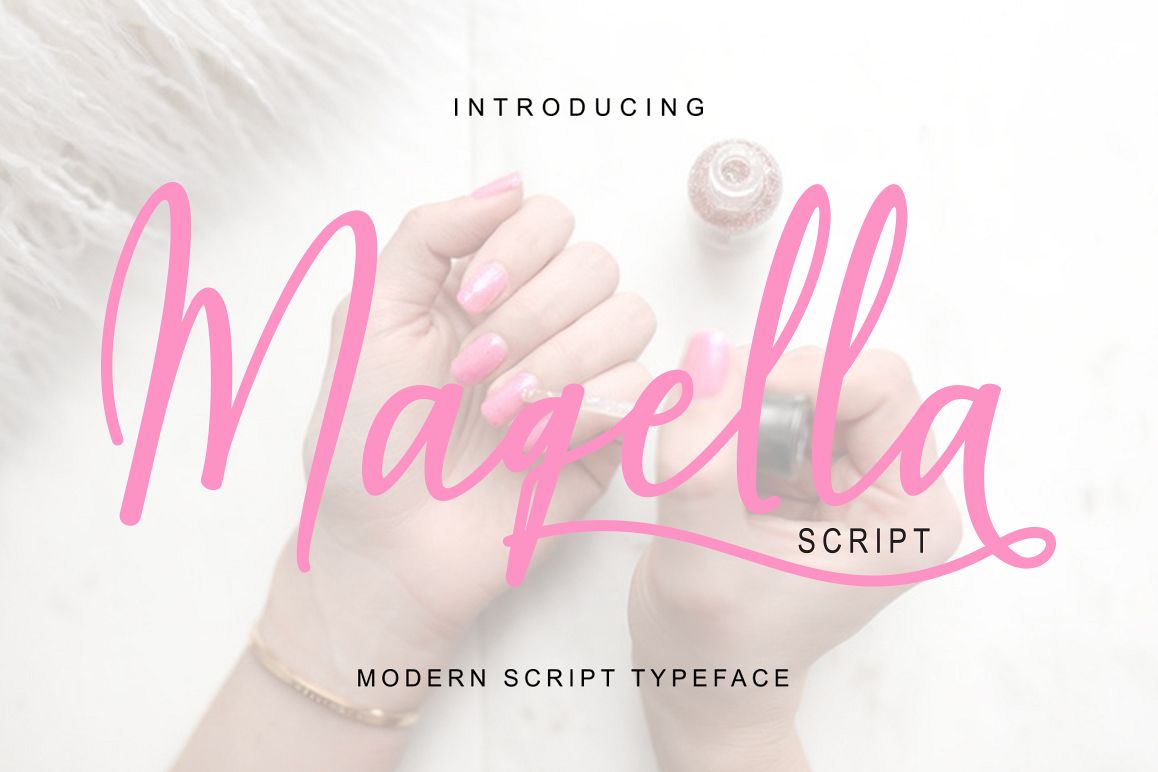
Magella Script
Introducing
Magella Script
Magella Script is modern script font, every single letters have been carefully crafted to make your text looks beautiful. With modern script style this font will perfect for many different project, example: weddings, invitations, greeting cards, posters, name card, quotes, blog header, branding, logo, fashion, apparel, letter, stationery,
Magella Script come with 264 glyphs. The alternative characters were divided into several Open Type features such as Swash, Stylistic Sets, Stylistic Alternates, Contextual Alternates. The Open Type features can be accessed by using Open Type savvy programs such as Adobe Illustrator, Adobe InDesign, Adobe Photoshop Corel Draw X version, And Microsoft Word. And this Font has given PUA unicode (specially coded fonts). so that all the alternate characters can easily be accessed in full by a craftsman or designer.